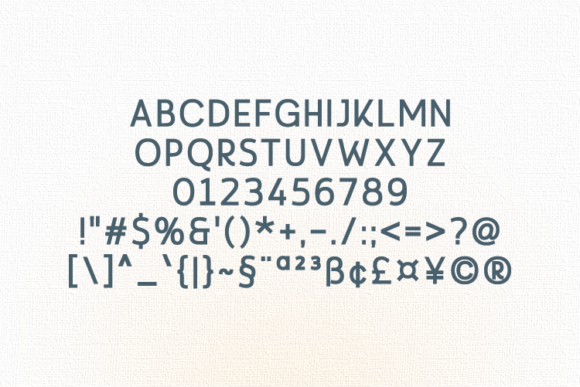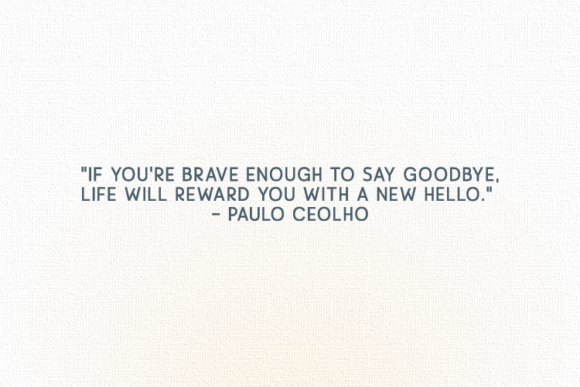
Introduction to Korean Font
Imagine you’re working on a design project and you need a font that perfectly complements your creative vision. You browse through various options, but nothing seems to capture the essence of your idea. That’s where the stunning Korean Font comes in – a versatile sans serif font that’s perfect for adding a touch of elegance to your project.
Whether you’re a seasoned designer or a creative enthusiast, the Korean Font is a valuable resource that can elevate your design game. Its clean lines, sleek design, and transparent background make it an ideal choice for a wide range of creative projects, from stunning logos and gorgeous invitations to beautiful displays and high-quality headers.
Key Features of Korean Font
- High-quality design: Korean Font is a premium font designed for creative projects, offering a unique and elegant look.
- Transparent background: The font’s transparent background allows for easy customization and blending with other design elements.
- High-resolution design: The font is designed at a high resolution (300 DPI), making it suitable for print and digital applications.
- Unique characteristics: Korean Font features a distinctive and modern design, making it an excellent choice for designers looking for a unique look.
- Scalable design: The font is designed to be scalable, allowing designers to use it for various design projects, from small to large-scale designs.
Honest Review: Korean Font
As a designer, I’m always on the lookout for high-quality design resources that can elevate my creative projects. Recently, I stumbled upon the Korean Font, and I have to say, it’s been a game-changer.
What works well: ✨ The font is incredibly versatile, with a wide range of styles and weights to choose from. It’s perfect for projects that require a touch of Korean flair, from posters to business cards. The transparent background feature is also a nice touch, allowing for seamless integration with any design.
- Wide range of styles and weights
- Transparent background feature
Korean Font
Tips for Getting the Most Out of Korean Font
To get the most out of Korean Font, use it with a transparent background to create a high-quality design. You can also combine it with other design resources, such as images and graphics, to create a unique and creative project.
Korean Font is commonly used in creative projects, such as logos, brochures, and business cards. It’s also a great design resource for anyone who wants to create a professional-looking document or presentation.